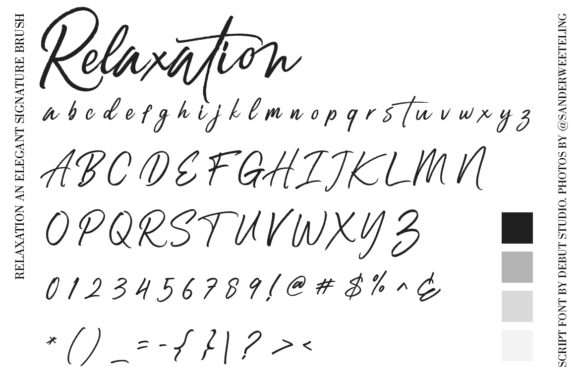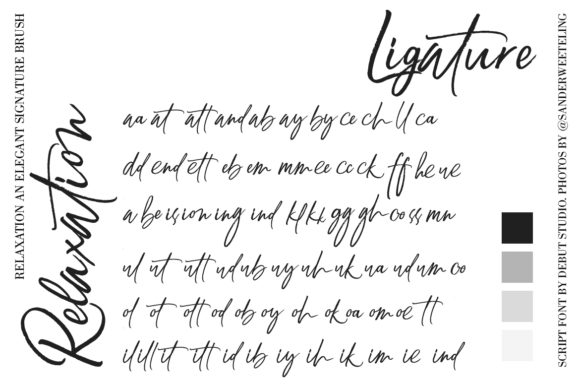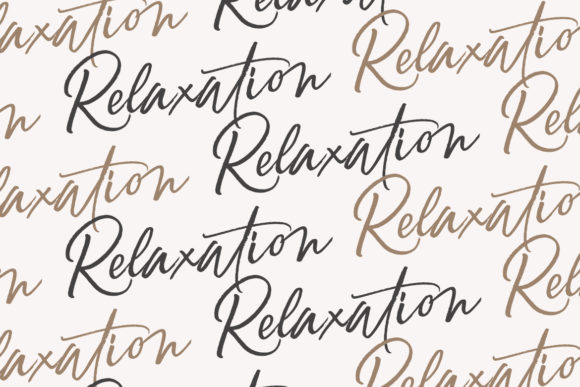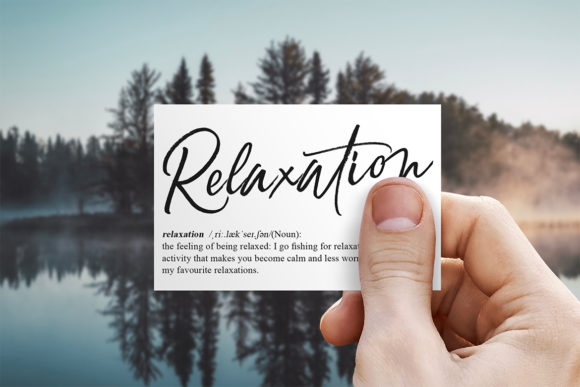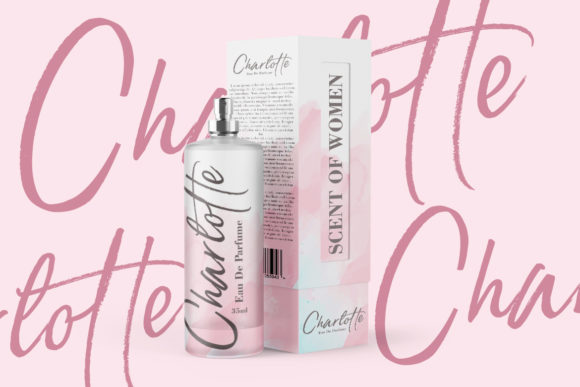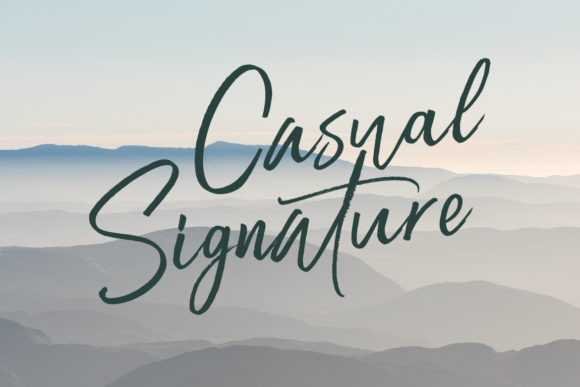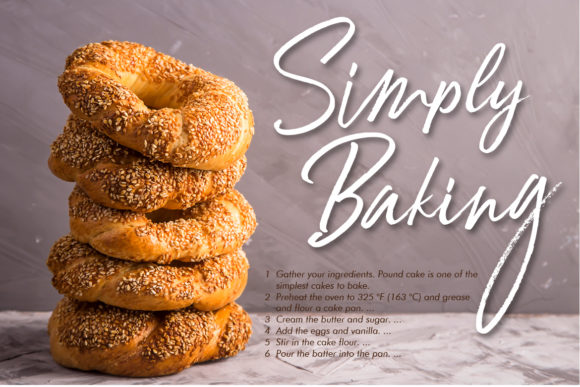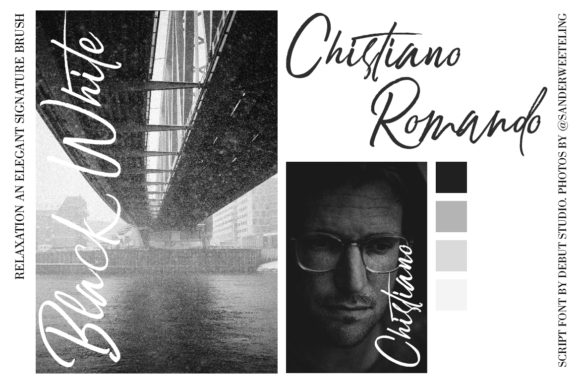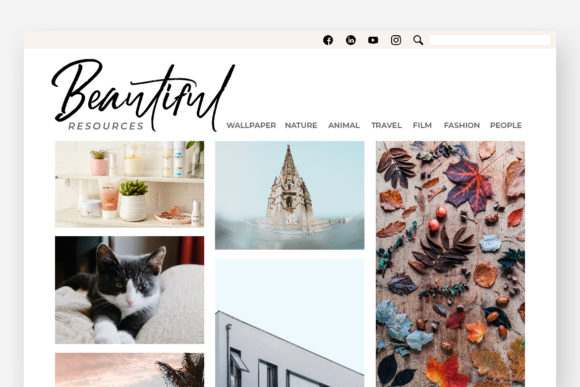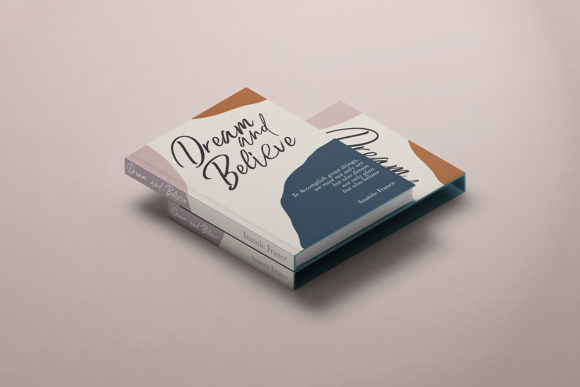
HomeScript FontsRelaxation Font Script Fonts Relaxation Font FacebookXPinterestWhatsApp Relaxation Font Poster 2 Relaxation Font Poster 3 Relaxation Font Poster 4 Relaxation Font Poster 5 Relaxation Font Poster 6 Relaxation Font Poster 7 Relaxation Font Poster 8 Relaxation Font Poster 9 Relaxation Font Poster 10 Relaxation Font Poster 11 About Relaxation Font Relaxation is a unique script with a contemporary vibe. Fall in love with its bold charm! DOWNLOAD ON CREATIVE FABRICAThis font is sold and delivered by Creative Fabrica. Font Canyon may earn a commission if you buy through this link. People also explored Sunshine Font Just Imagine Font The Rothena Script Yustine Signature Font Wonderland Font Hollow City Font Chole Font White Mug Pink Floral Mock Up Andy & Anna Font 310 0 TagsRelaxation Font Previous articleWinter Poppins FontNext articleThe Mighty Major Font LEAVE A REPLY Cancel reply Comment: Please enter your comment! Name:* Please enter your name here Email:* You have entered an incorrect email address! Please enter your email address here Website: Save my name, email, and website in this browser for the next time I comment. Personal Use Free Market Love Personal Use Free Read more about this font Clarisa Script Personal Use Free Read more about this font Starter Personal Use Free Read more about this font Rare Knuckle Personal Use Free Read more about this font BLOG Free vs Paid Fonts: Why Investing in Premium Fonts Is Worth It Free vs Paid Fonts: Why Premium Fonts Are Worth It in 2025 The debate of free vs paid fonts continues in the design world. While... Top 10 Handwritten Fonts That Elevate Your Designs Using Fonts in Digital Marketing: Tips to Strengthen Your Brand Identity Transform Your Website: Elevate Your Typography with 7 Best Web Font Generators